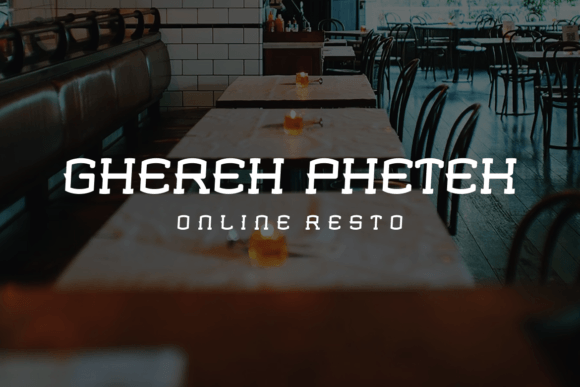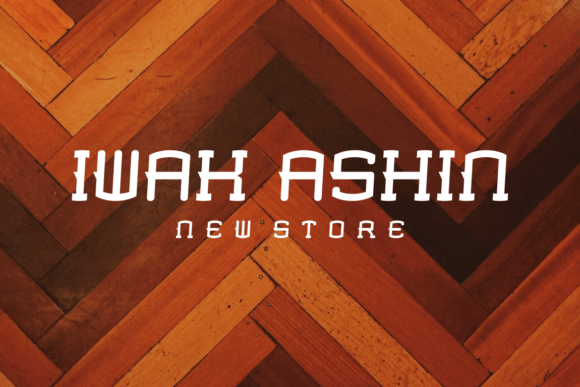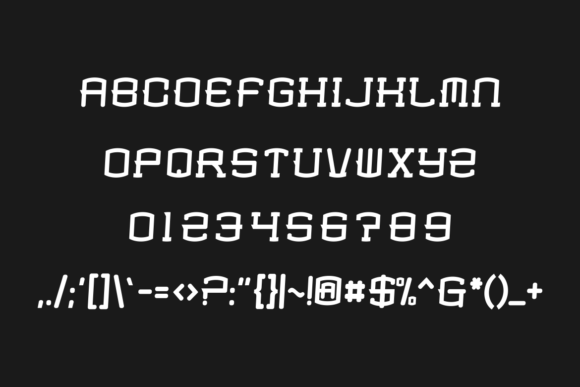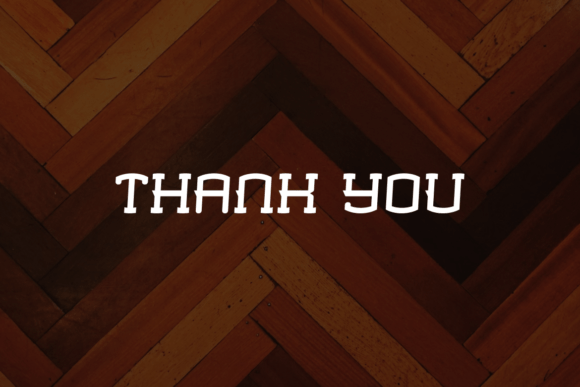
Introducing Chamsoel Font: The Perfect Blend of Classic Elegance and Modern Style
In the world of typography, fonts play a crucial role in conveying the tone and personality of a brand or design. For designers and crafters, finding the right font can make all the difference in creating visually appealing and effective designs. If you’re on the hunt for a font that exudes classic elegance with a modern twist, look no further than Chamsoel Font. In this article, we’ll dive into the world of Chamsoel Font, exploring its features, benefits, and uses.
What is Chamsoel Font?
Chamsoel Font is a modern serif font that seamlessly blends traditional elegance with a fresh, contemporary style. Its clean lines, balanced proportions, and subtle nuances make it perfect for creating stylish and readable text in a variety of designs. Whether you’re working on a branding project, a website, or a craft project, Chamsoel Font is an excellent choice.
Key Features of Chamsoel Font
So, what sets Chamsoel Font apart from other fonts? Here are some of its key features:
- Clean Lines: Chamsoel Font boasts clean lines that give it a crisp, modern look. This makes it perfect for designs that require a touch of sophistication.
- Balanced Proportions: The font’s balanced proportions ensure that it’s easy to read, even at smaller sizes. This makes it ideal for body text, captions, and other applications where readability is crucial.
- Serif Details: Chamsoel Font features subtle serif details that add a touch of classic elegance to your designs.
- Versatility: Chamsoel Font is highly versatile and can be used in a wide range of designs, from branding and advertising to web design and crafting.
Benefits of Using Chamsoel Font
So, why should you choose Chamsoel Font for your next design project? Here are some benefits of using this amazing font:
- Enhance Readability: Chamsoel Font’s clean lines and balanced proportions make it easy to read, even at smaller sizes.
- Add Elegance: The font’s serif details and classic style add a touch of sophistication to your designs.
- Increase Versatility: Chamsoel Font can be used in a wide range of designs, making it a great addition to your font library.
- Stand Out: With Chamsoel Font, you can create designs that stand out from the crowd and leave a lasting impression.
Uses of Chamsoel Font
Chamsoel Font is a highly versatile font that can be used in a variety of designs. Here are some examples of how you can use this amazing font:
- Branding: Use Chamsoel Font to create a professional and elegant brand identity.
- Web Design: Chamsoel Font is perfect for web design, where readability and style are crucial.
- Advertising: The font’s classic style and modern twist make it perfect for advertising and marketing materials.
- Crafting: Chamsoel Font is also great for craft projects, such as papercraft, card making, and scrapbooking.
In conclusion, Chamsoel Font is a modern serif font that offers the perfect blend of classic elegance and contemporary style. Its clean lines, balanced proportions, and subtle nuances make it perfect for creating stylish and readable text in a variety of designs. Whether you’re a designer, crafter, or simply someone who appreciates great typography, Chamsoel Font is an excellent choice. So why wait? Give Chamsoel Font a try today and take your designs to the next level!